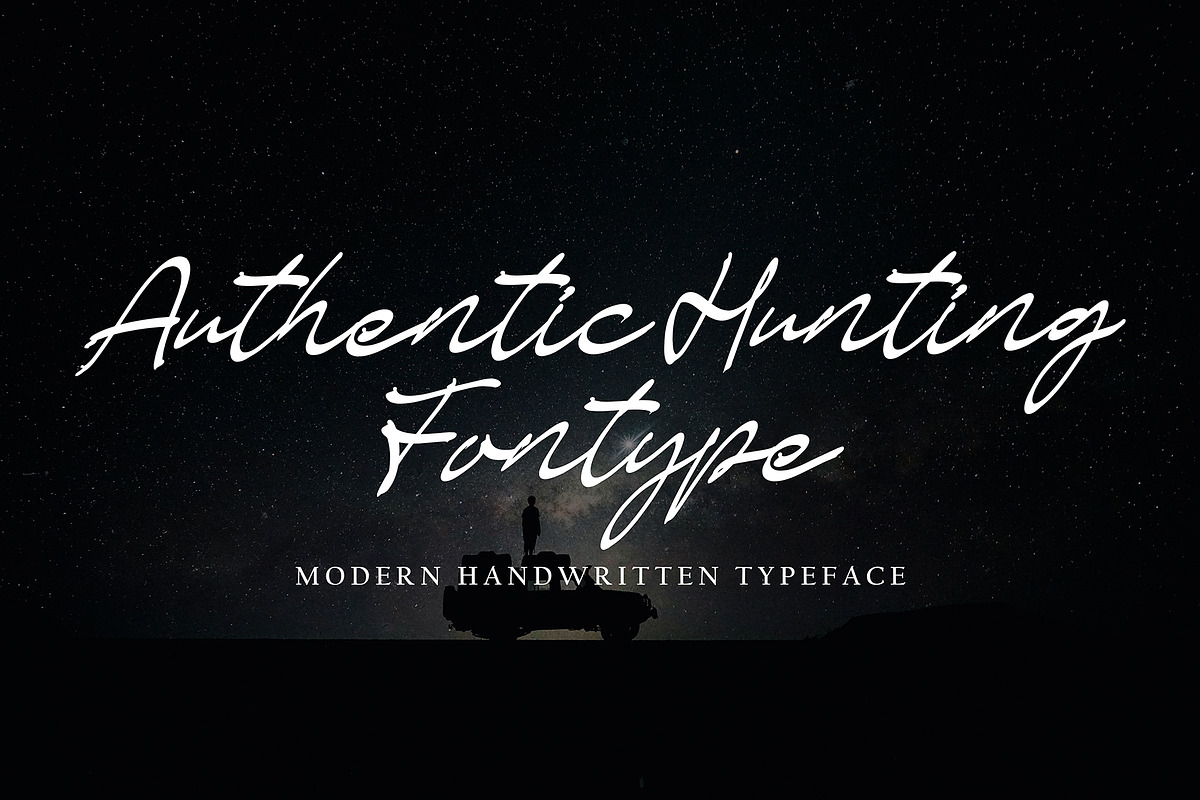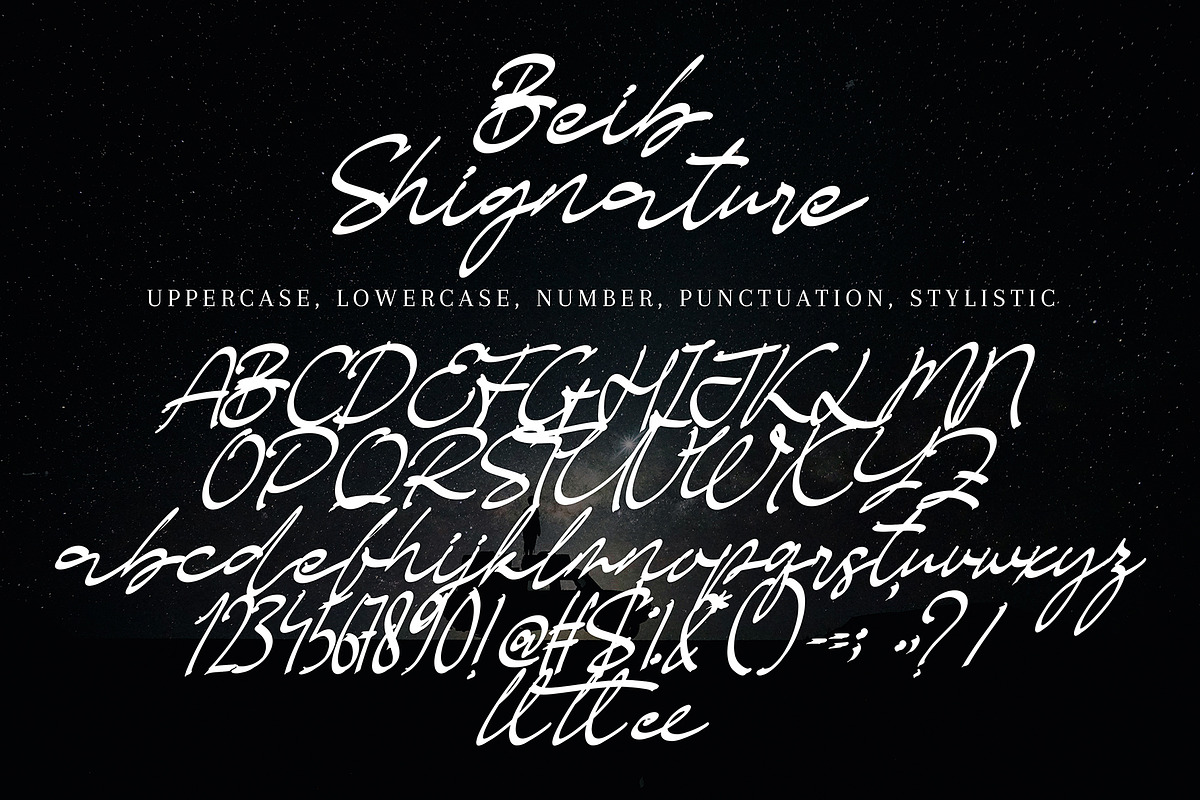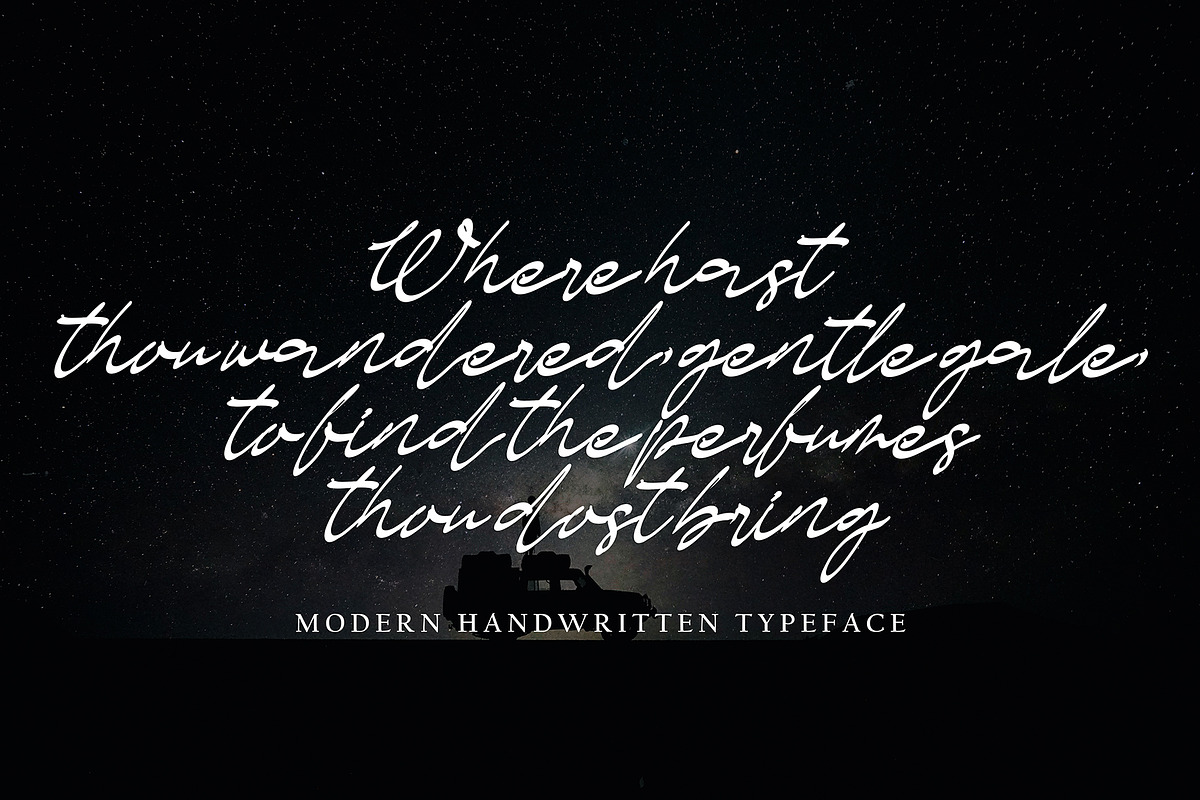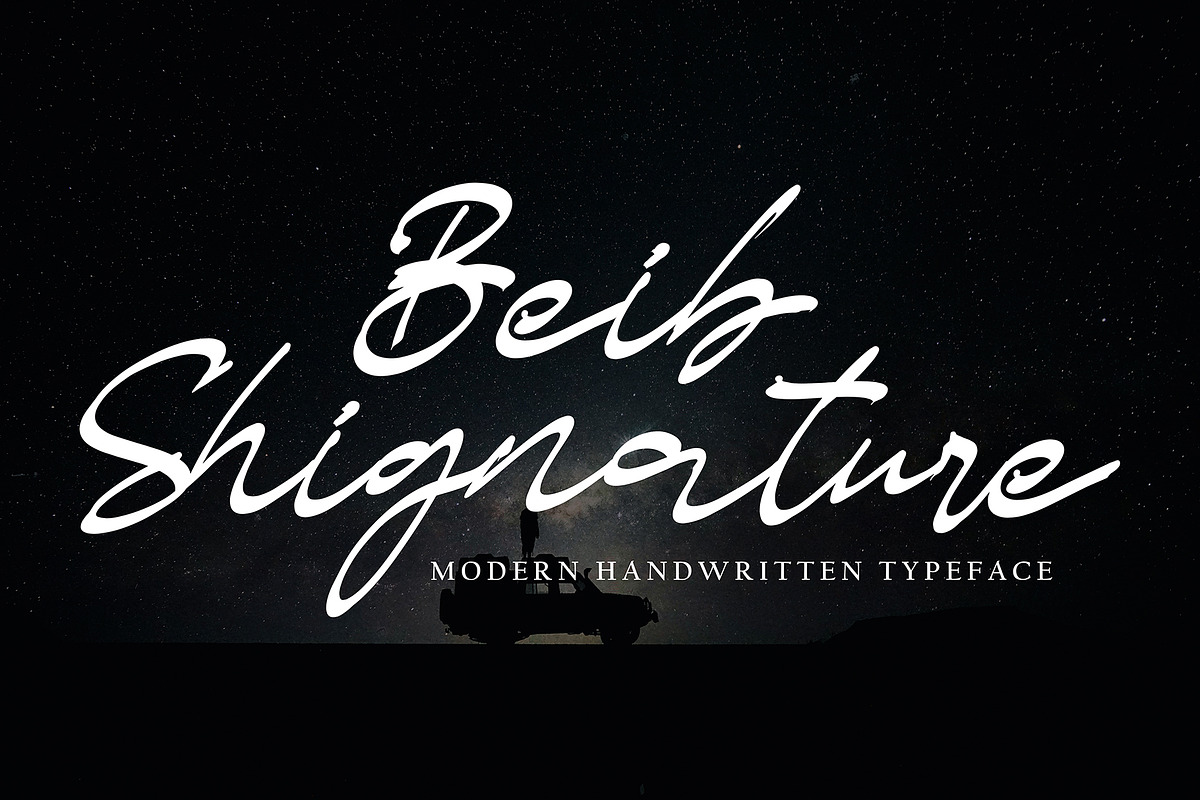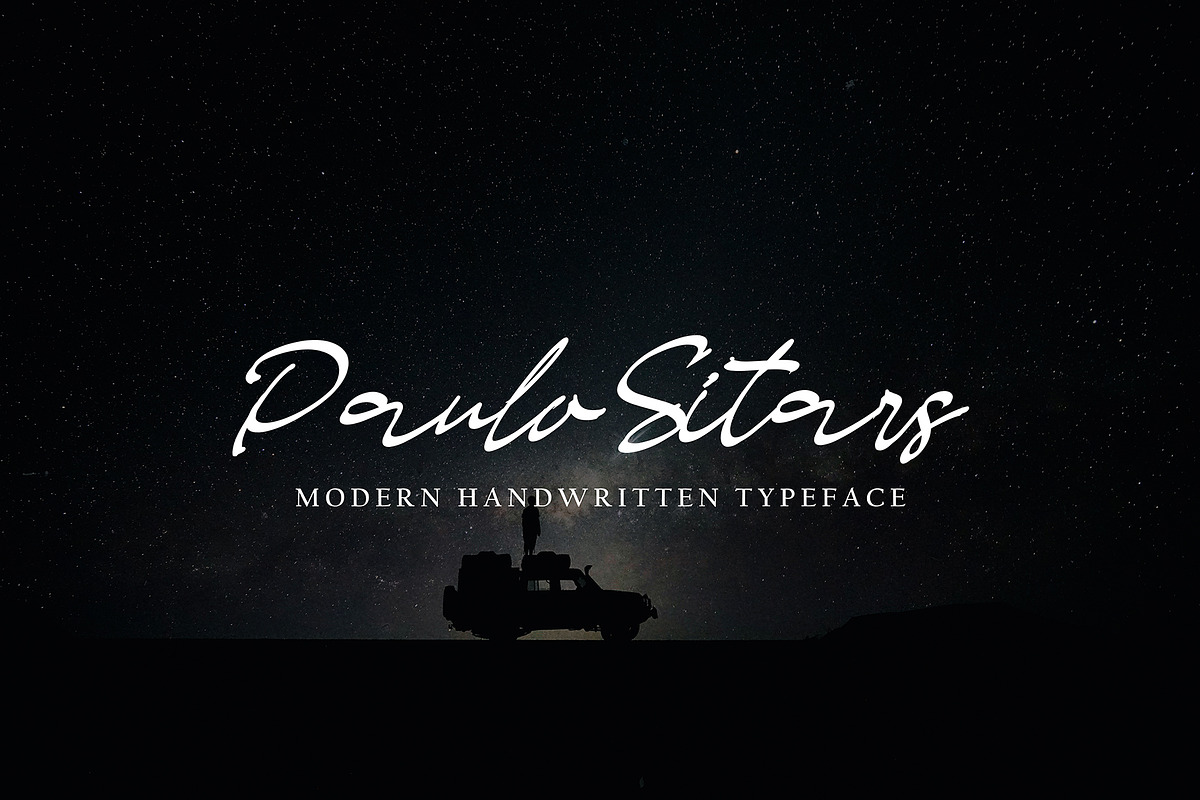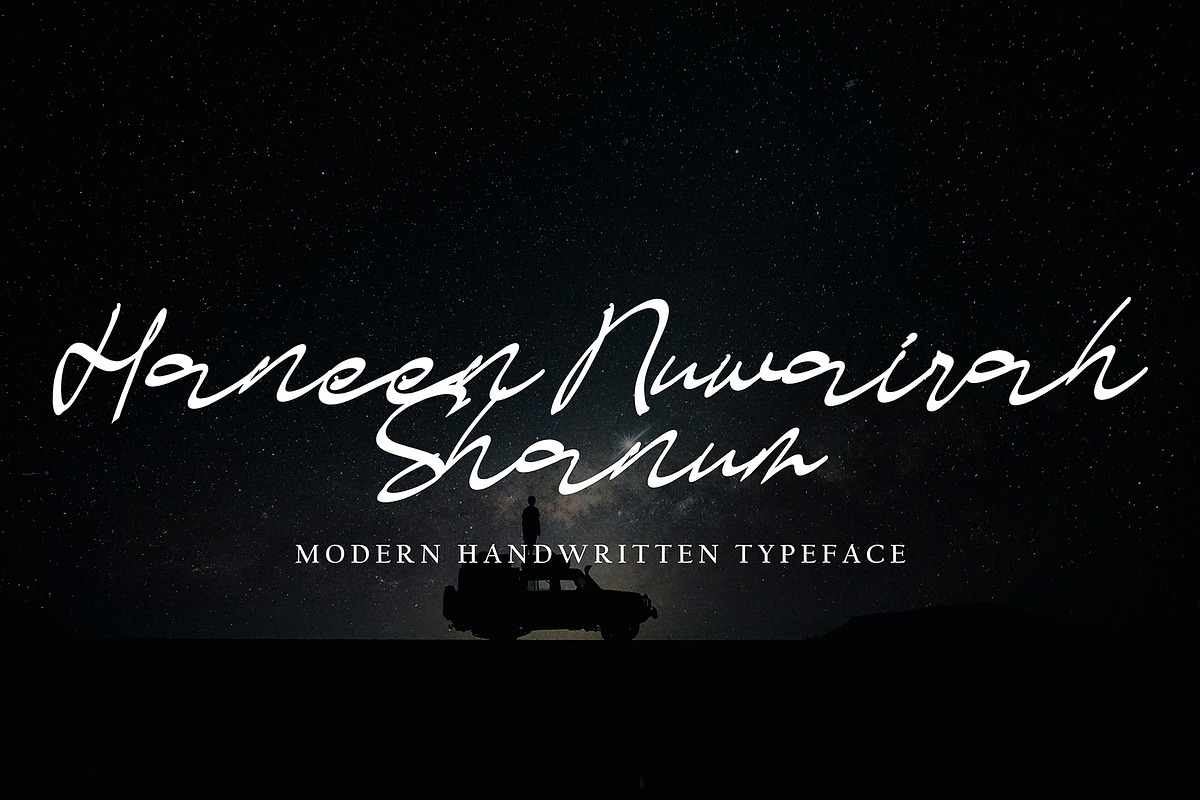
Beib Shignature
Beib Shignature with new style, this font will perfect for many different project ex: quotes, logo, blog header, poster, banding, letter, invitation, stationery, etc...